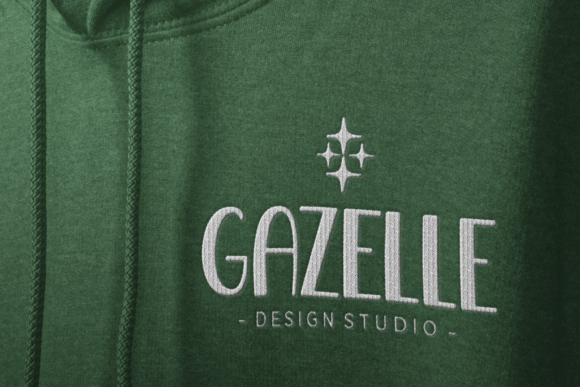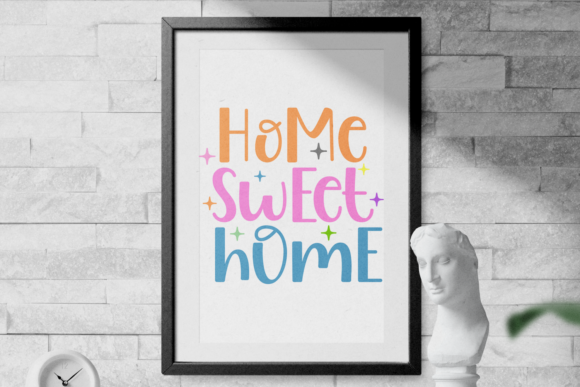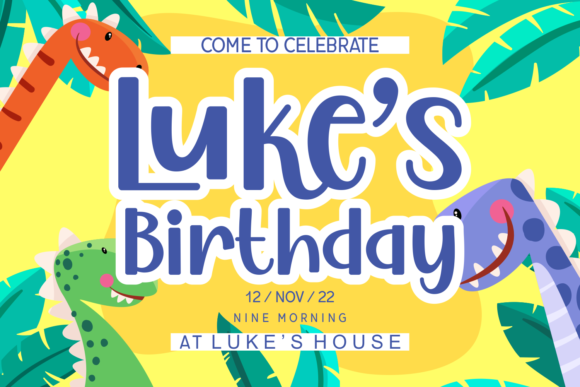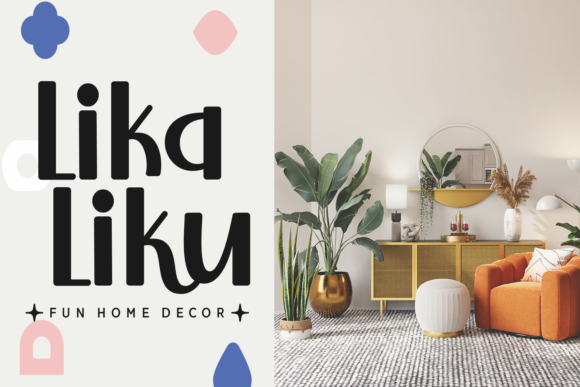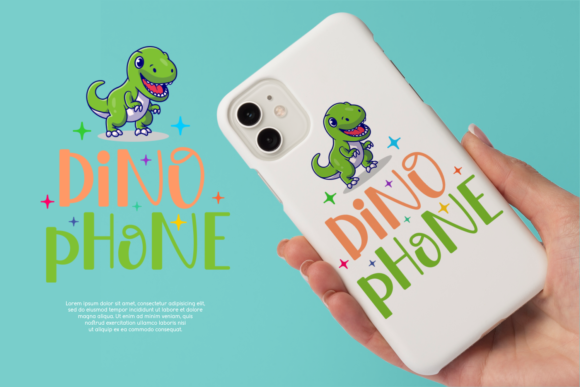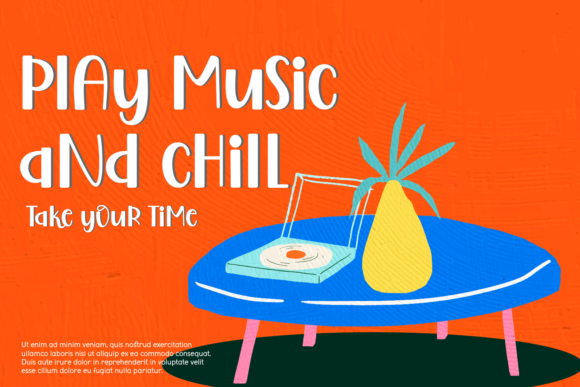
Introduction to Lucky Boys Font
Lucky Boys is a bouncy and charming handwritten font featuring perfectly assorted characters.
Friendly and fun, this typeface is great for any creative idea you have in mind .